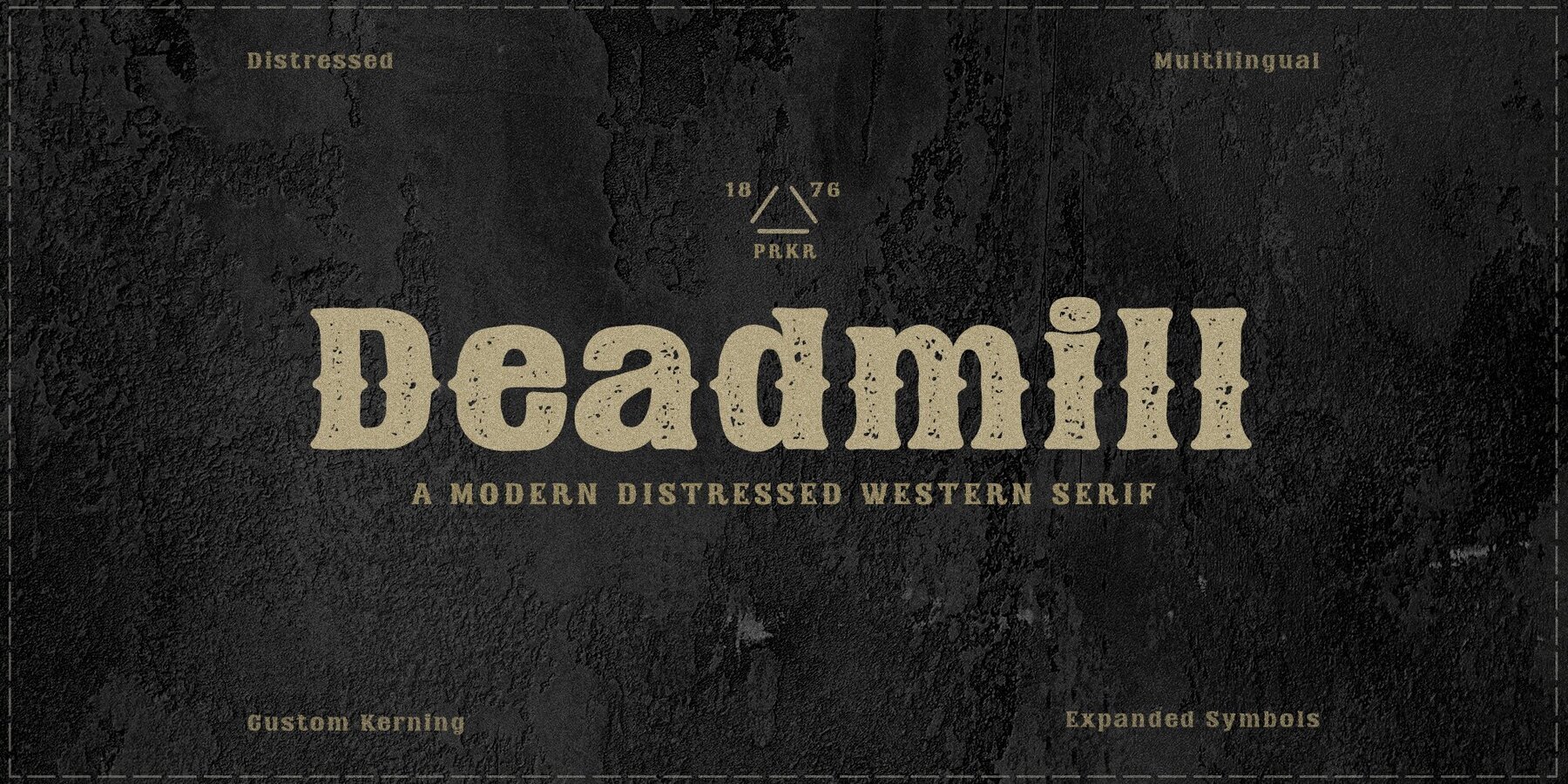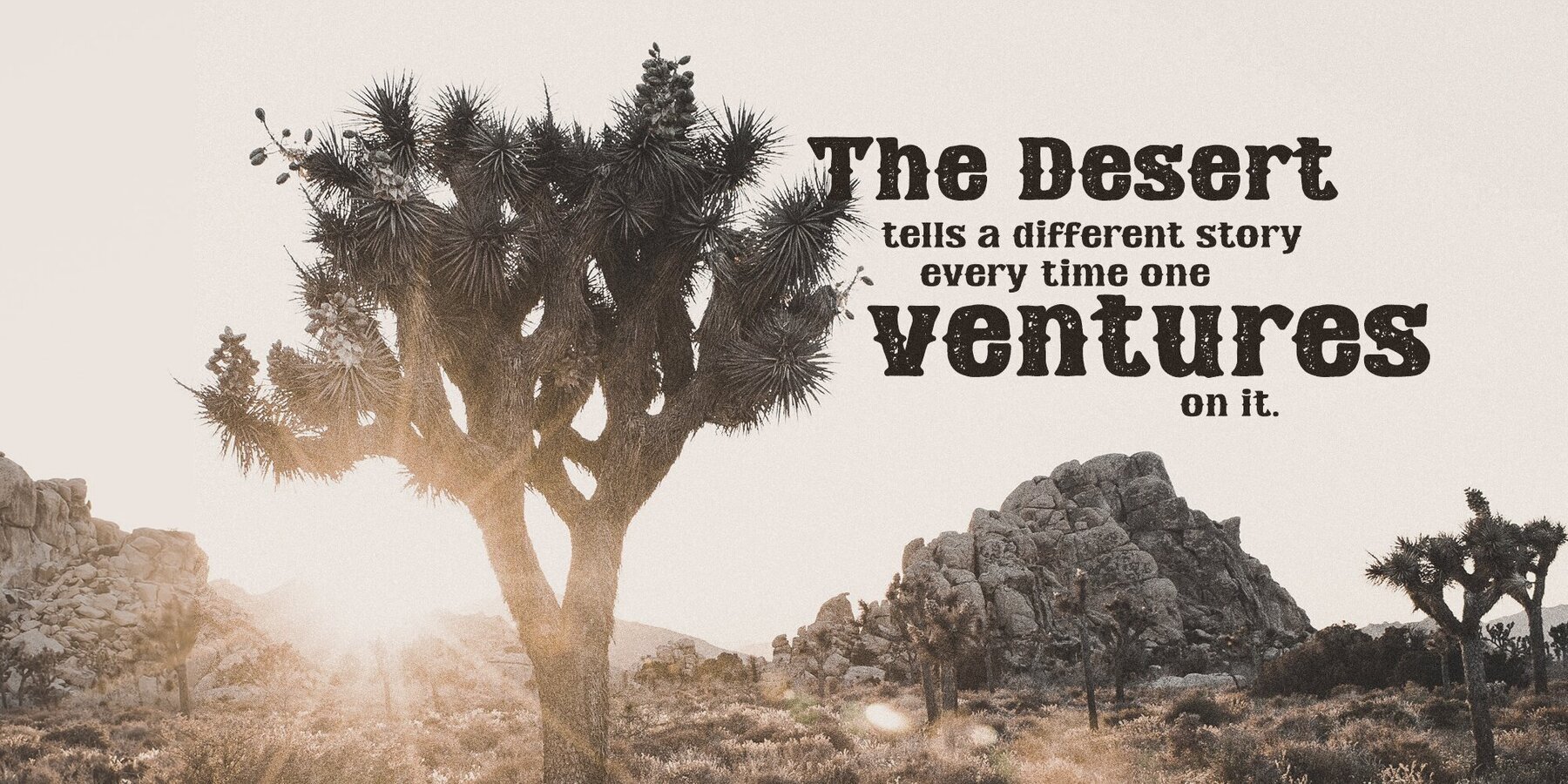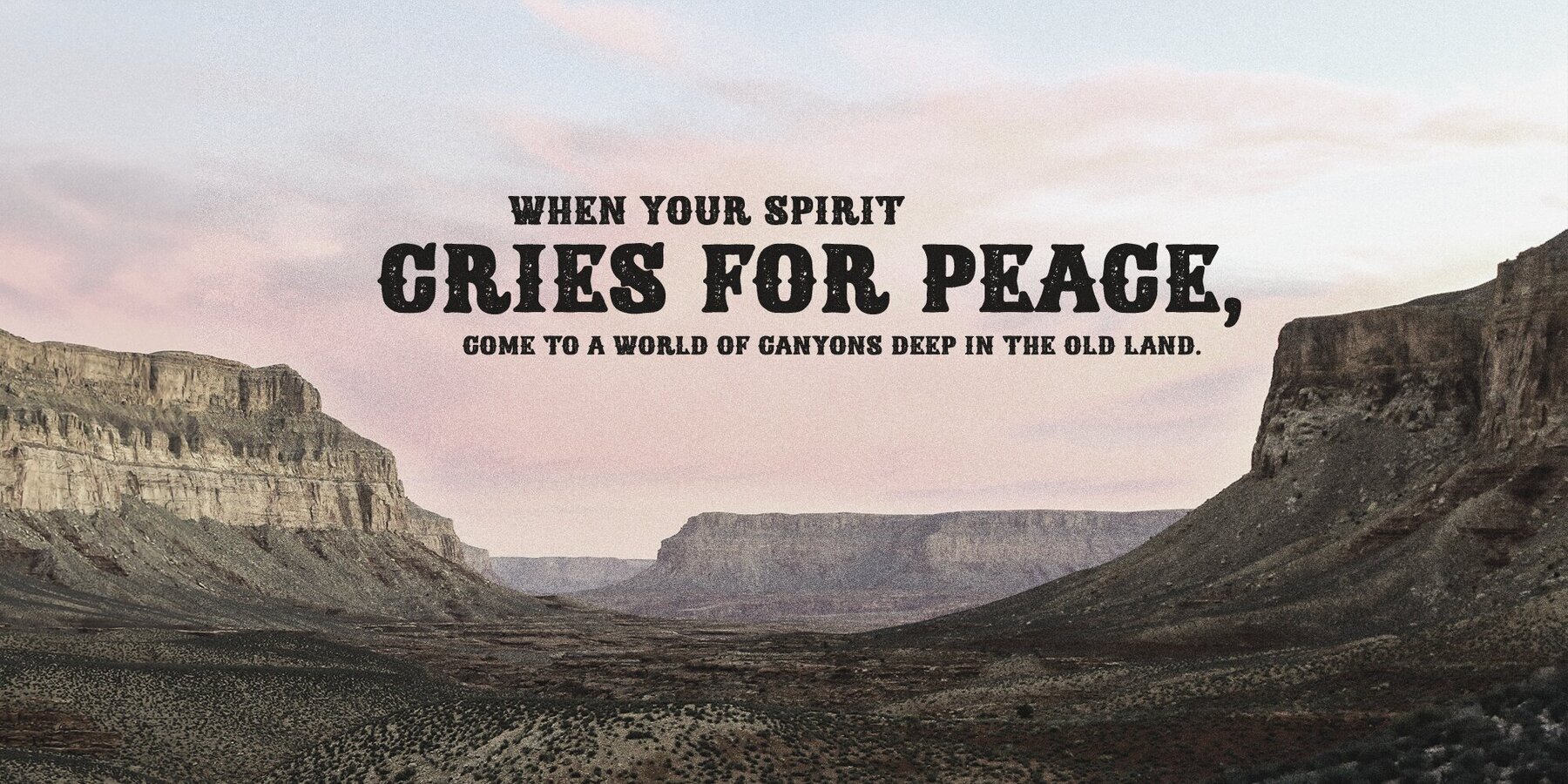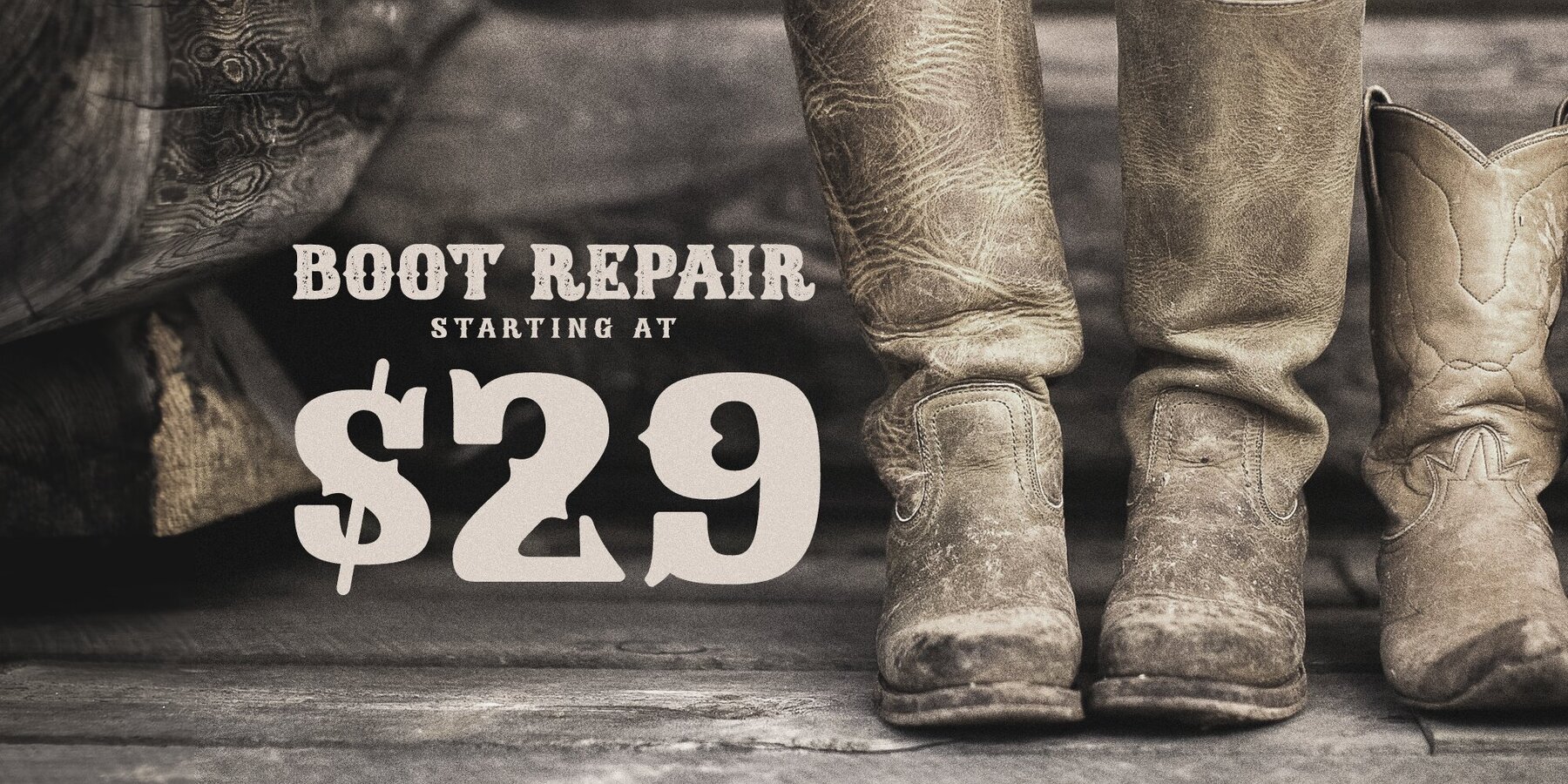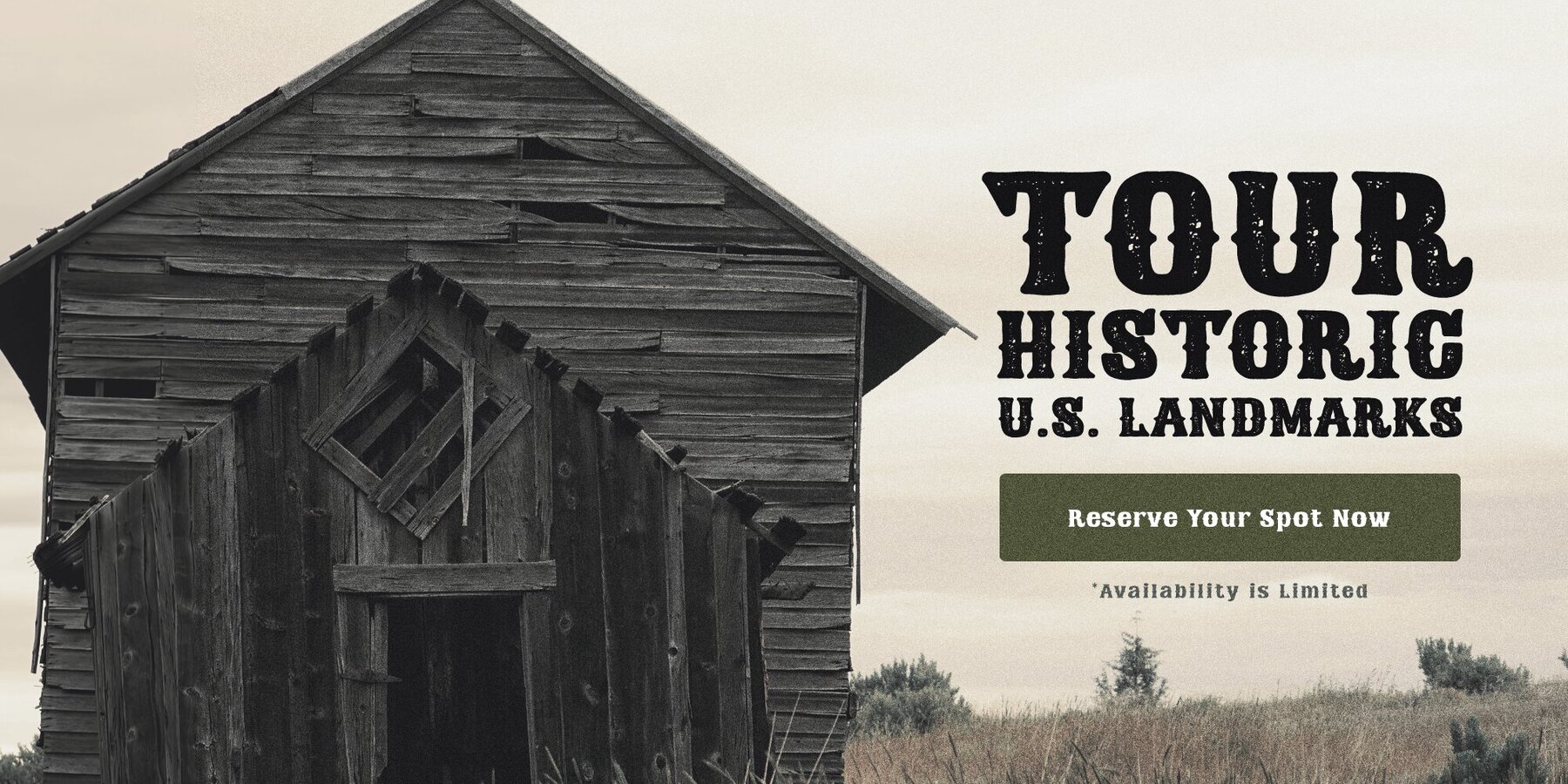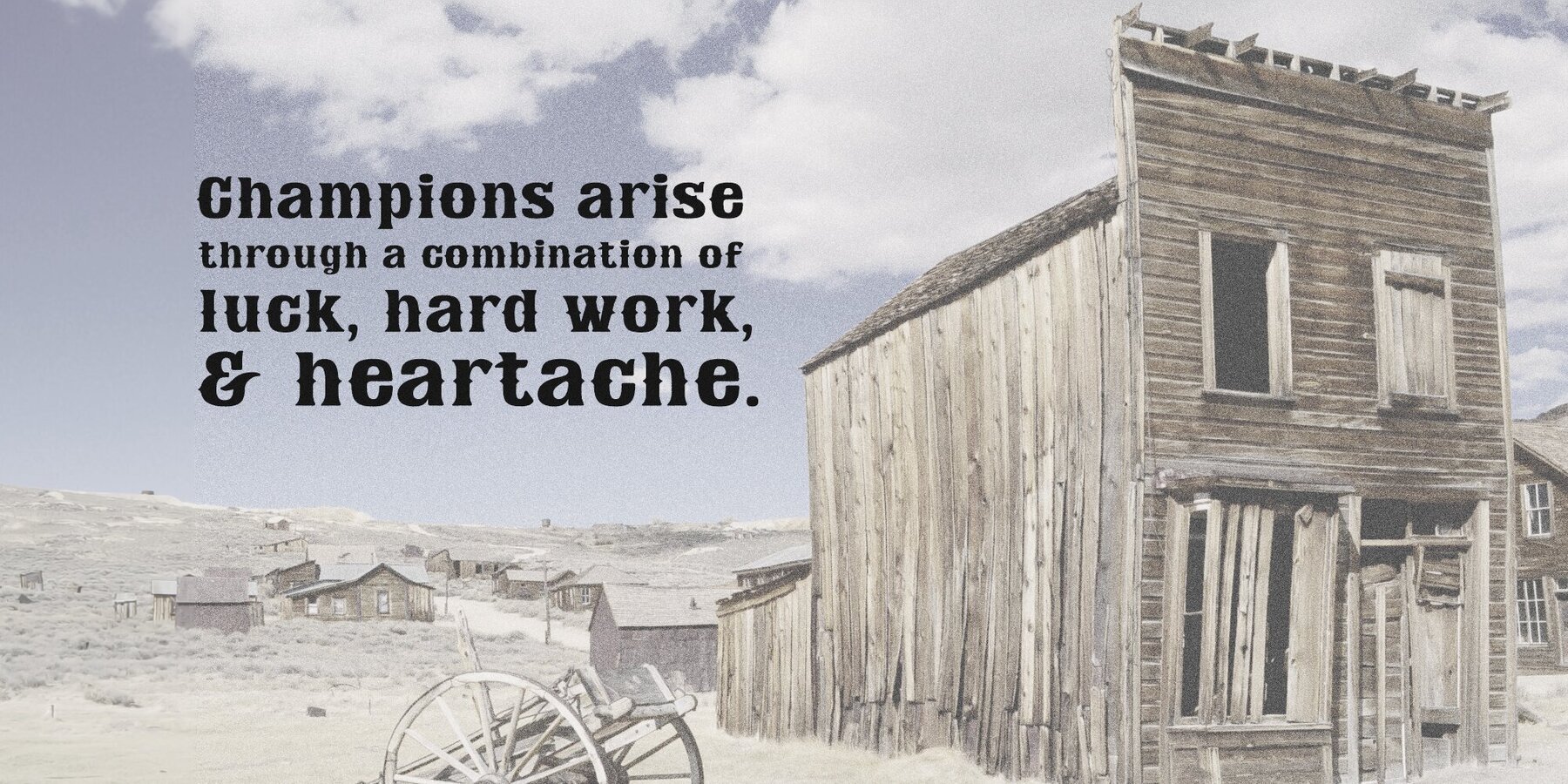
Deadmill Font
Embrace the rich traditions of the old west with Deadmill, a modern serif inspired by historic saloon lettering. This typeface effortlessly bridges the gap between classic style and digital design, with a handmade distressed variation adding a textured, authentic feel. Ideal for evoking a rugged frontier aesthetic, Deadmill excels in projects ranging from evocative wanted posters to rustic beer labels. Its design is completed by multilingual characters and an expanded symbol set for comprehensive versatility.Deadmill: Reviving the Spirit of the Wild West